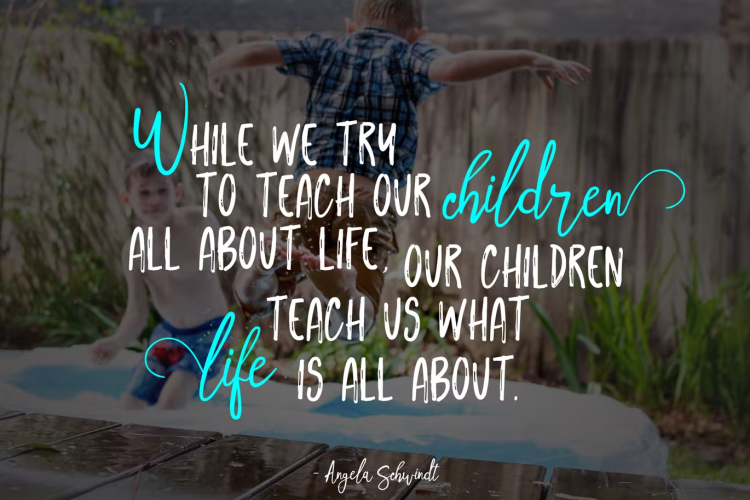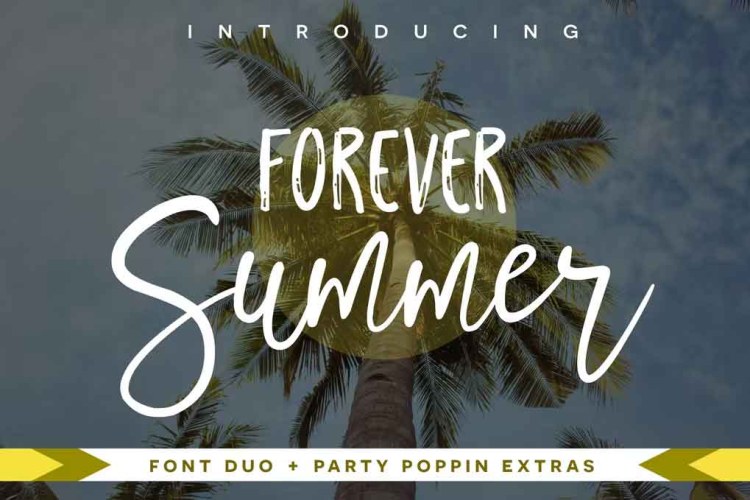
Forever Summer Font Duo
BOUT FOREVER SUMMER FONT DUO :
Forever Summer is a fun loving font duo that couples sexy script with playful sans serif!
strokes give it a gritty and eye popping aesthetic perfect for prints, greeting cards, typography quotes, branding, and more! Plus add the The Bonus Ornaments to your designs and quickly catch your customers eye!
Use it in ink, watercolor, or gold foil based designs or all on its own! Handcrafted fonts have become all the rage. Pick up this Font Duo package and get ready to take over the design world by storm!
Where Forever Summer Font Duo works best
A short phrase in Forever Summer Font Duo carries warmth that a typeset sans cannot fake; keep the rest of the card plain.
Chalkboard-style headings in Forever Summer Font Duo make a menu feel hand-made. Keep the dish descriptions in a simple face so prices stay readable.
One line of Forever Summer Font Duo over a photo is enough; the script carries the tone and the caption does the work.
What kind of work does Forever Summer Font Duo suit?
It sits in the Script And Handwritten group and reads as branding, playful, sans serif, script. That makes it a candidate wherever those qualities help: headings, packaging, social graphics and brand work. Set it at the size you plan to use before deciding.